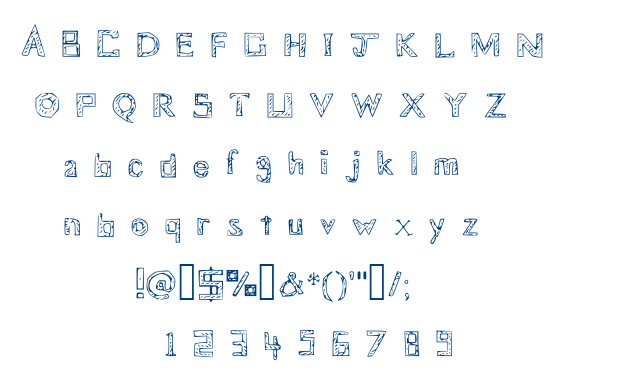
Tiny Small Medium Large Blueprint font ImagineStudios Website Blueprint.ttf Download 2469 downloads Freeware Category: Basic A Simple blueprint font, best used in large sizes, such as titles! Enjoy! Character Map specimen sheet